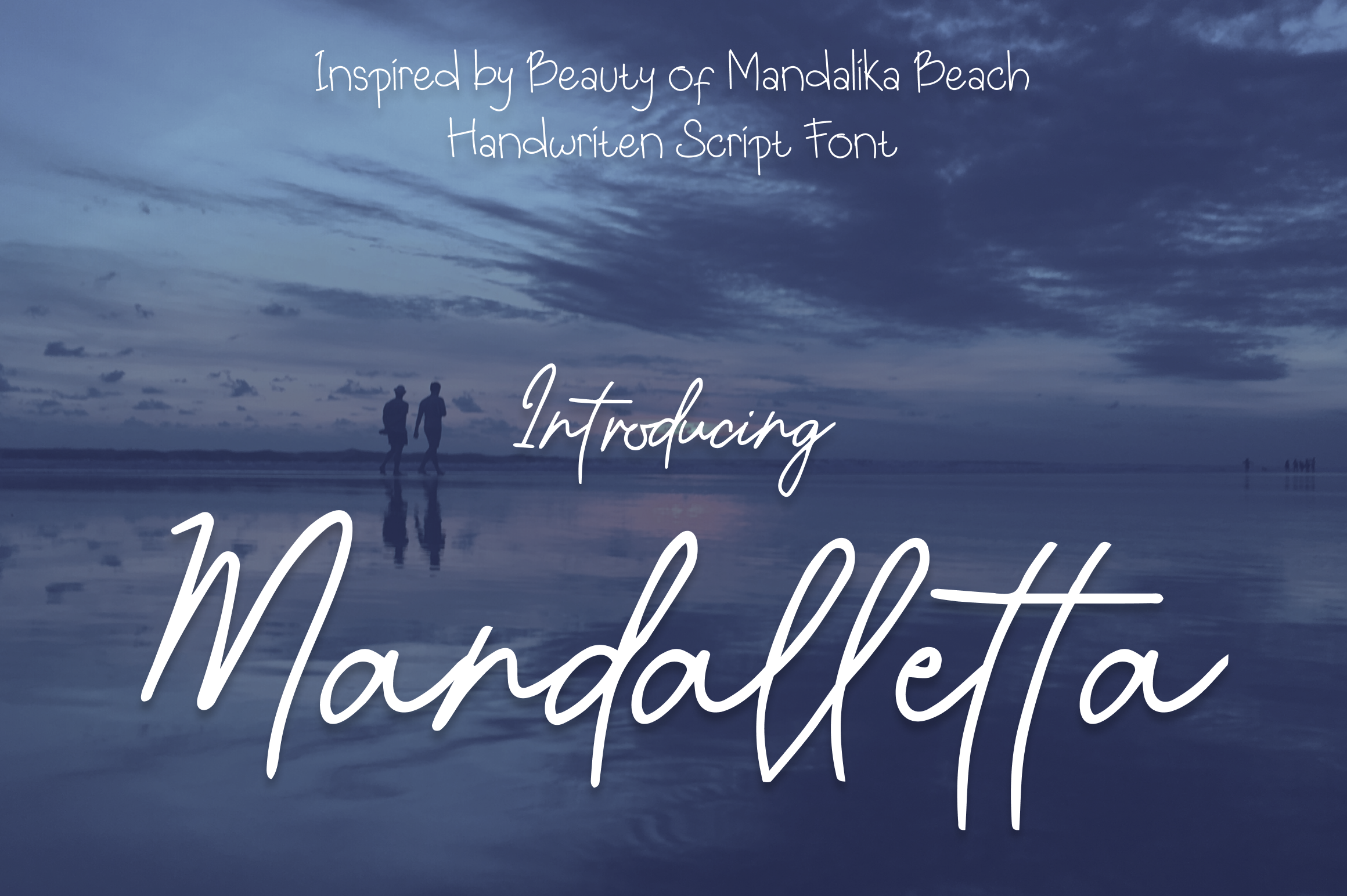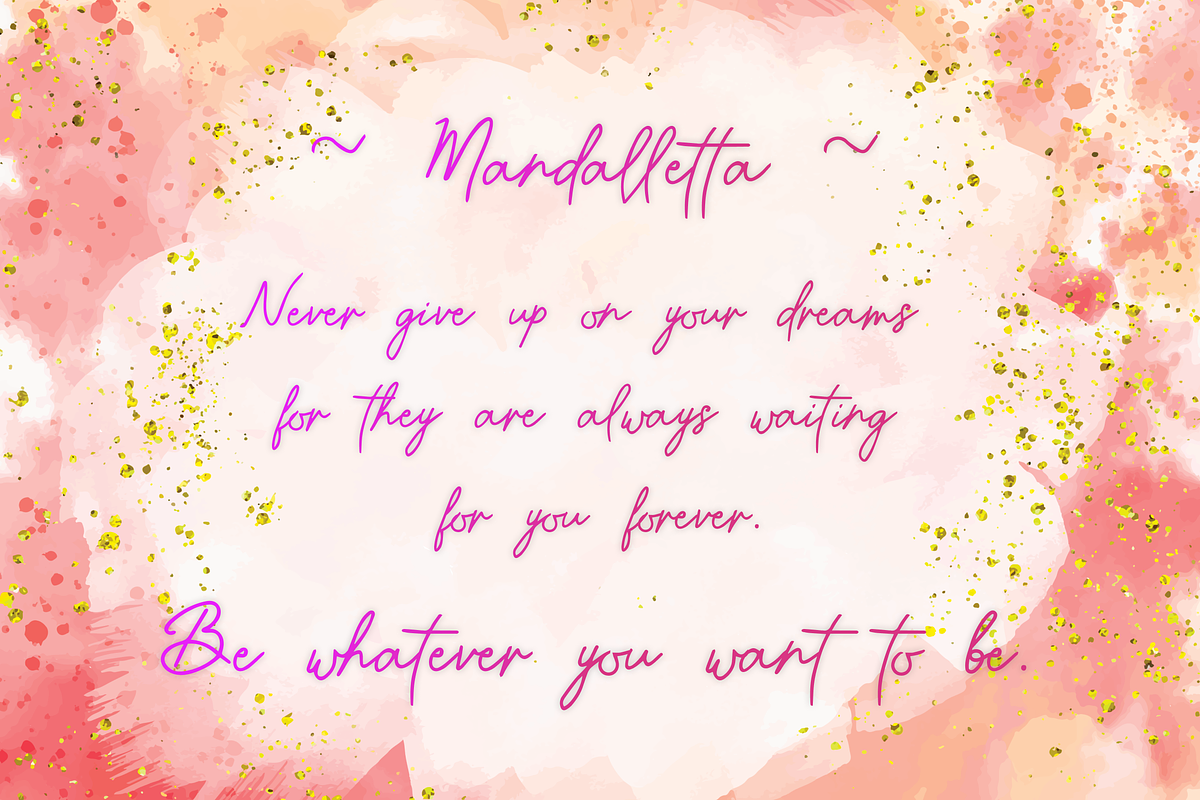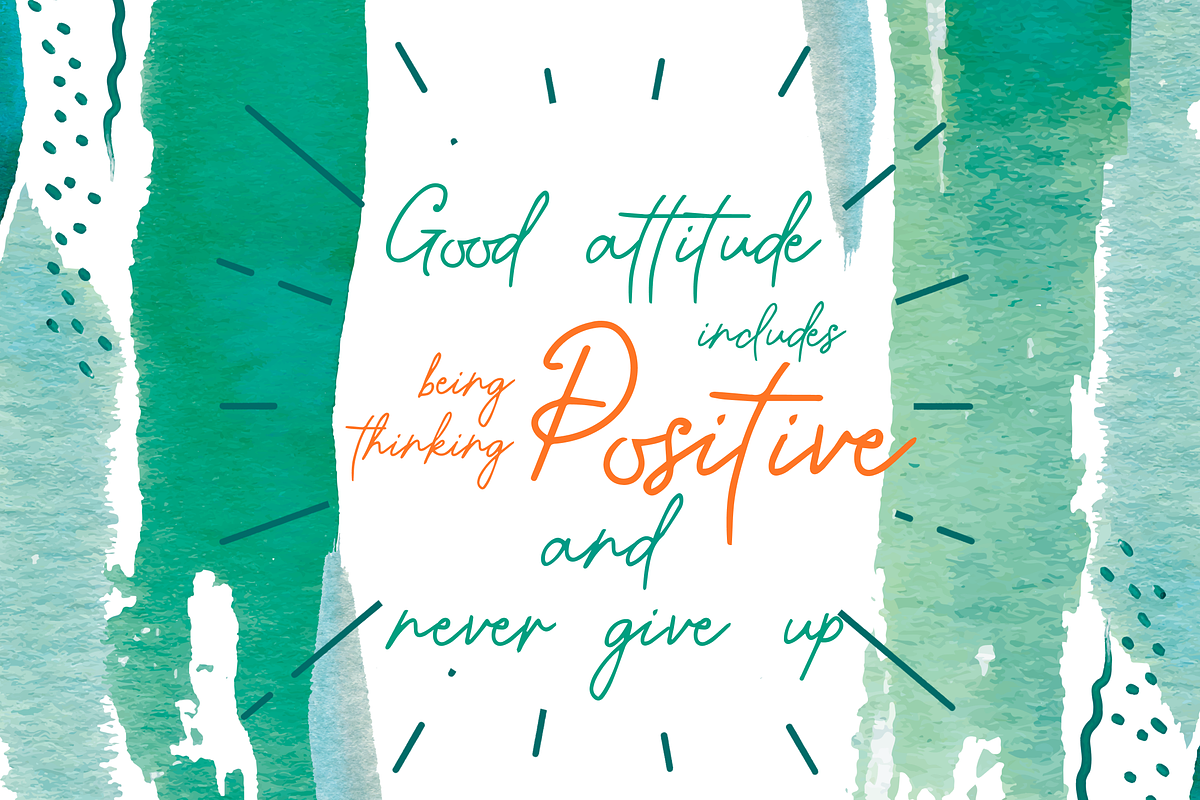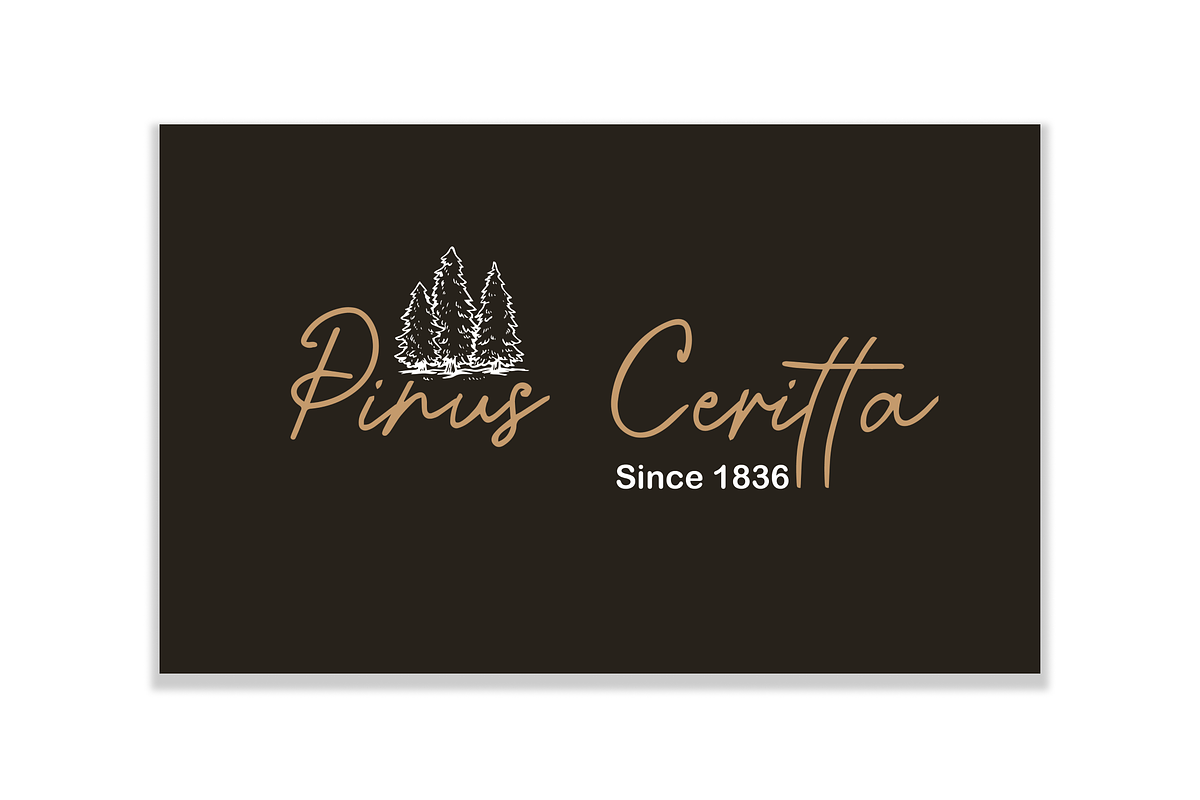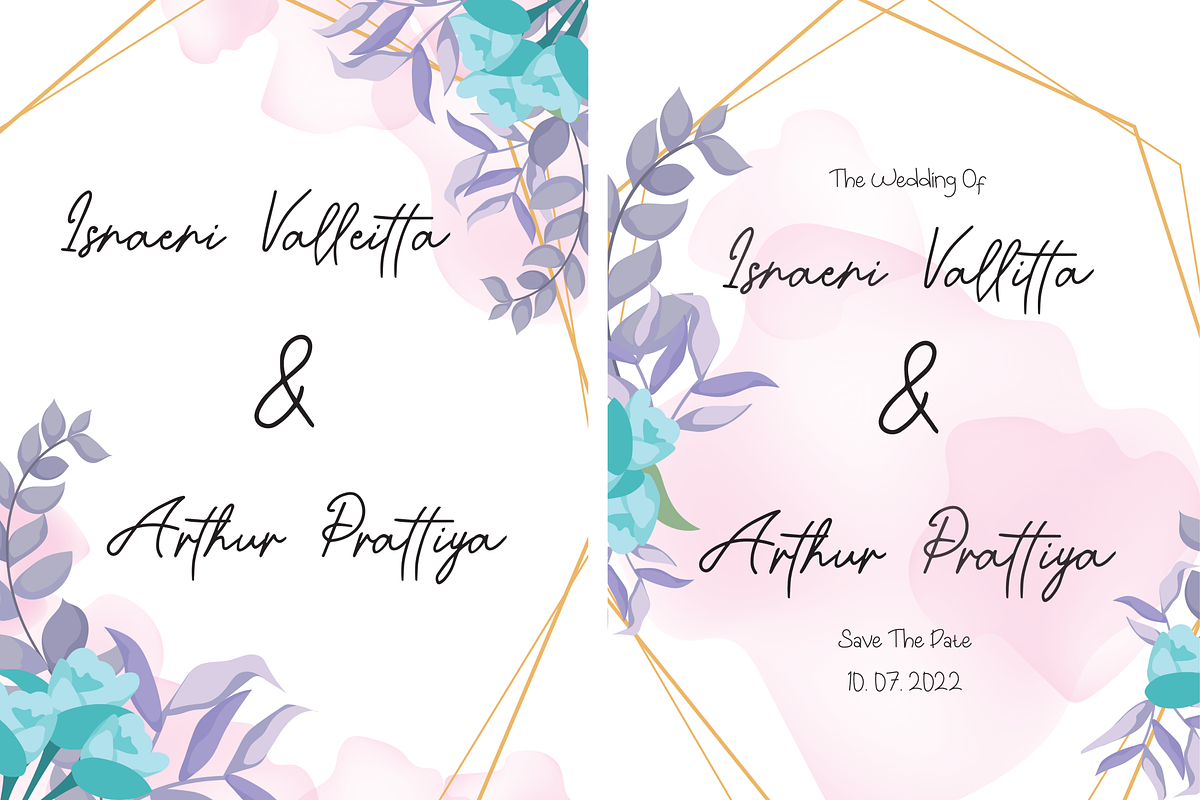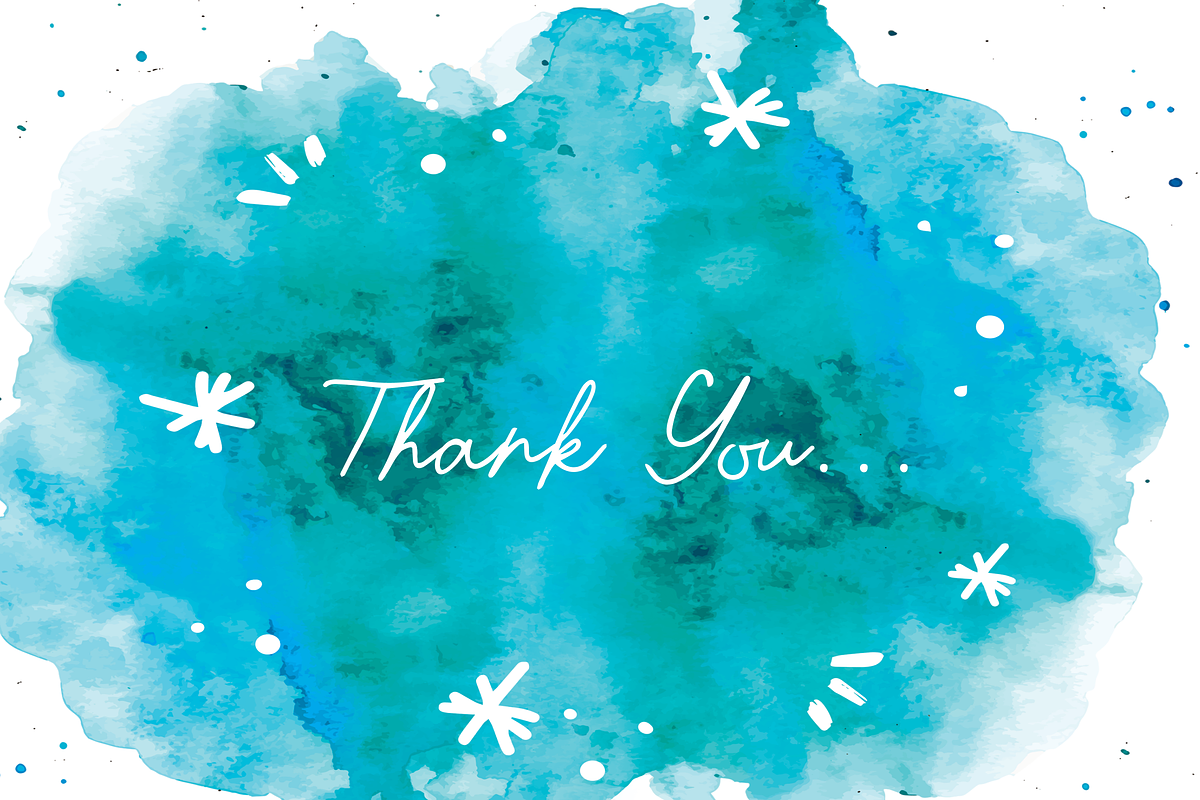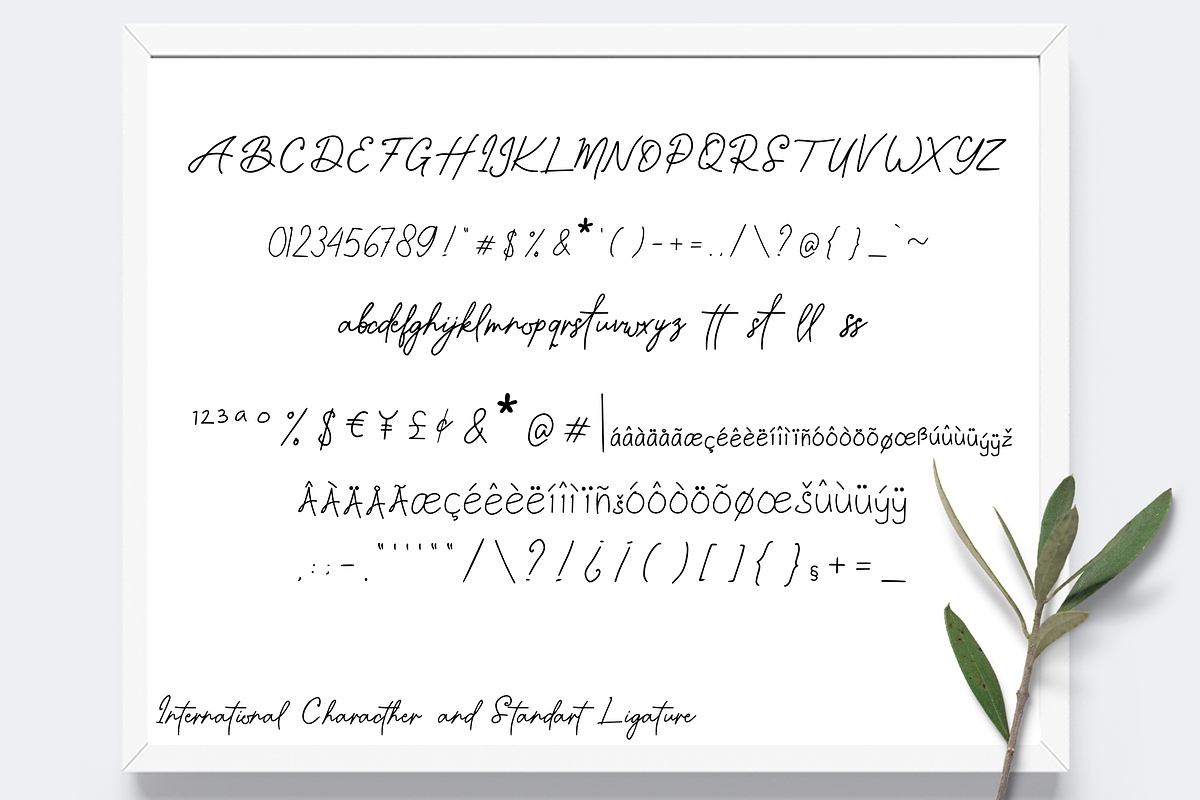
Mandalletta Script Font
Mandalletta is inspired by the beauty of the Mandalika beach. It is perfect for any branding project such as logos, t-shirt printing, creative products, and more. It will look extraordinary in a variety of contexts.